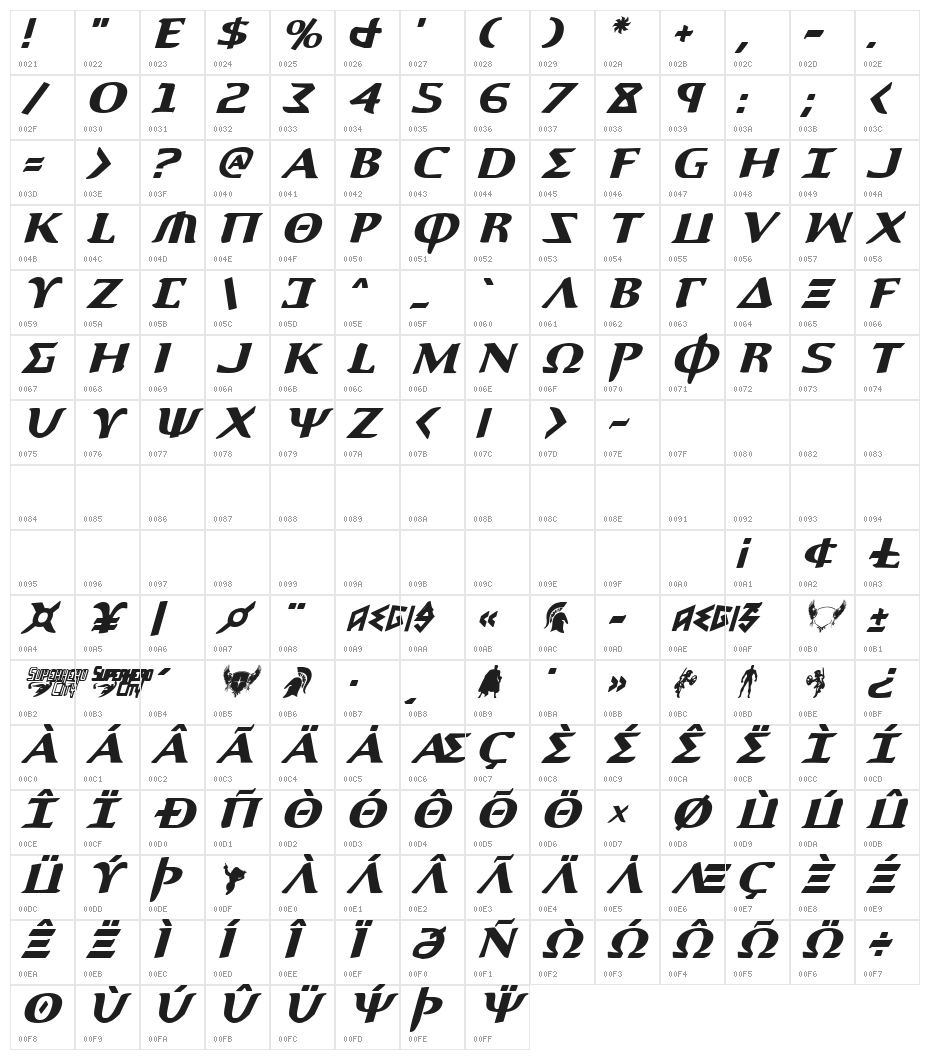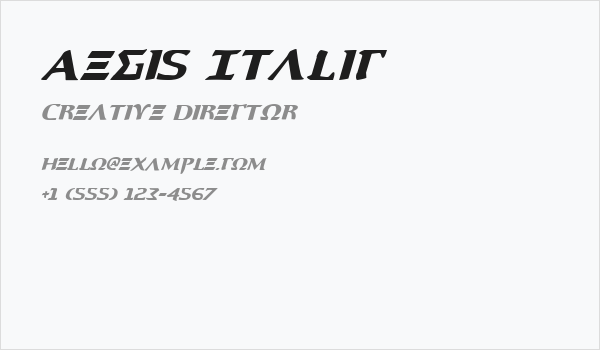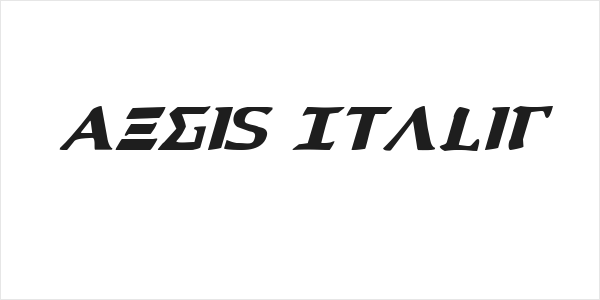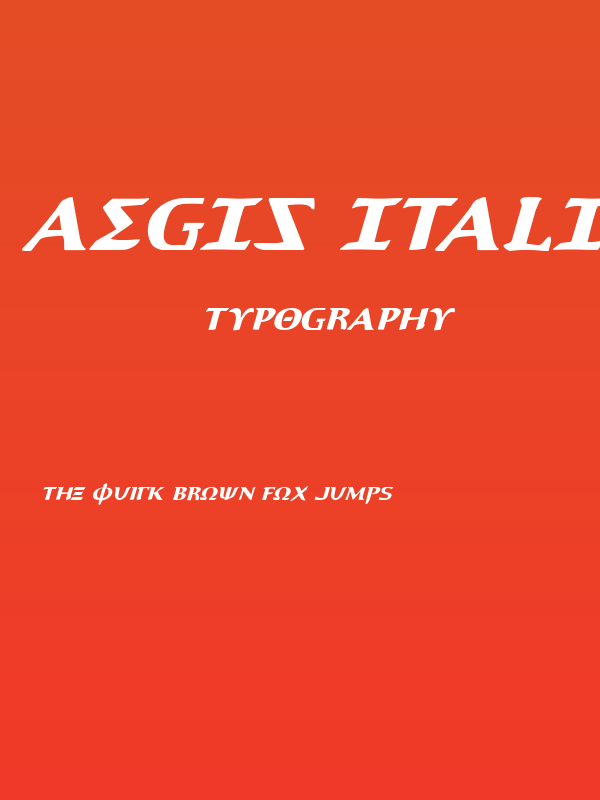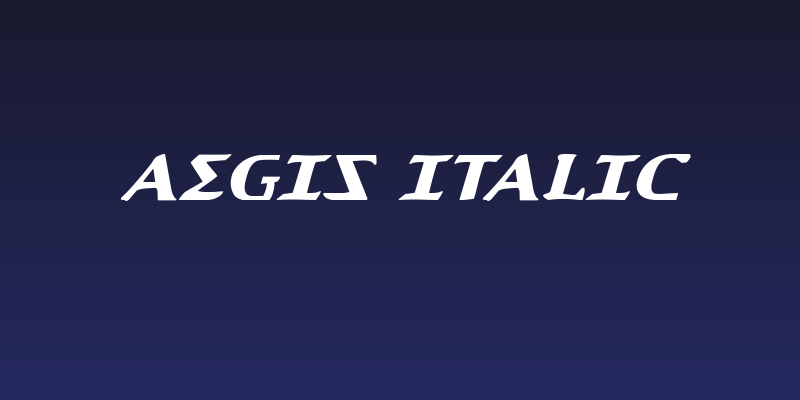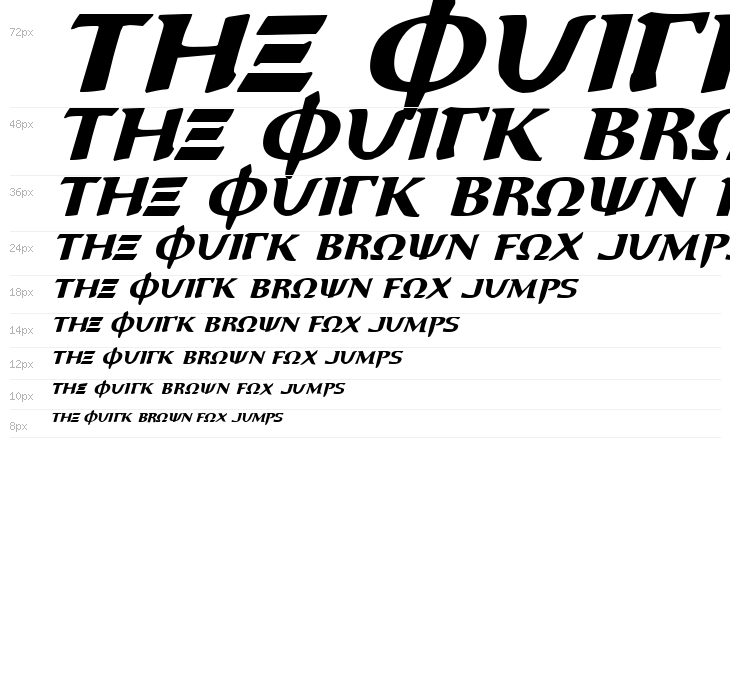
Aegis Italic Font
Aegis Italic Description
This font exhibits a dynamic and angular style, characterized by its sharp edges and italicized form. The letters are bold and slightly condensed, giving a sense of movement and urgency. The uppercase and lowercase letters maintain a consistent slant, enhancing the italic effect. The numerals and special characters follow the same design principles, ensuring uniformity across all glyphs. The font's unique style is reminiscent of ancient scripts, yet it maintains a modern appeal, making it suitable for various creative applications.
Proposed ProjectsIdeal for branding, logos, and headlines that require a bold and dynamic appearance.